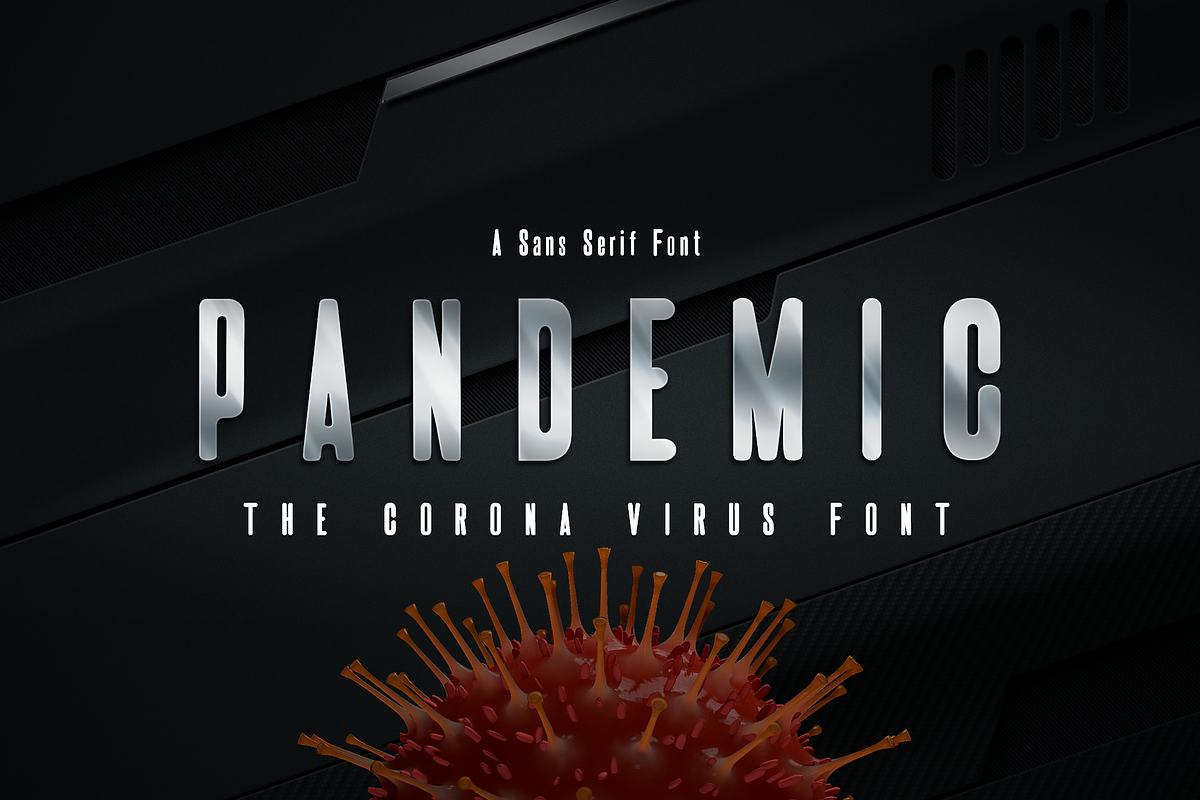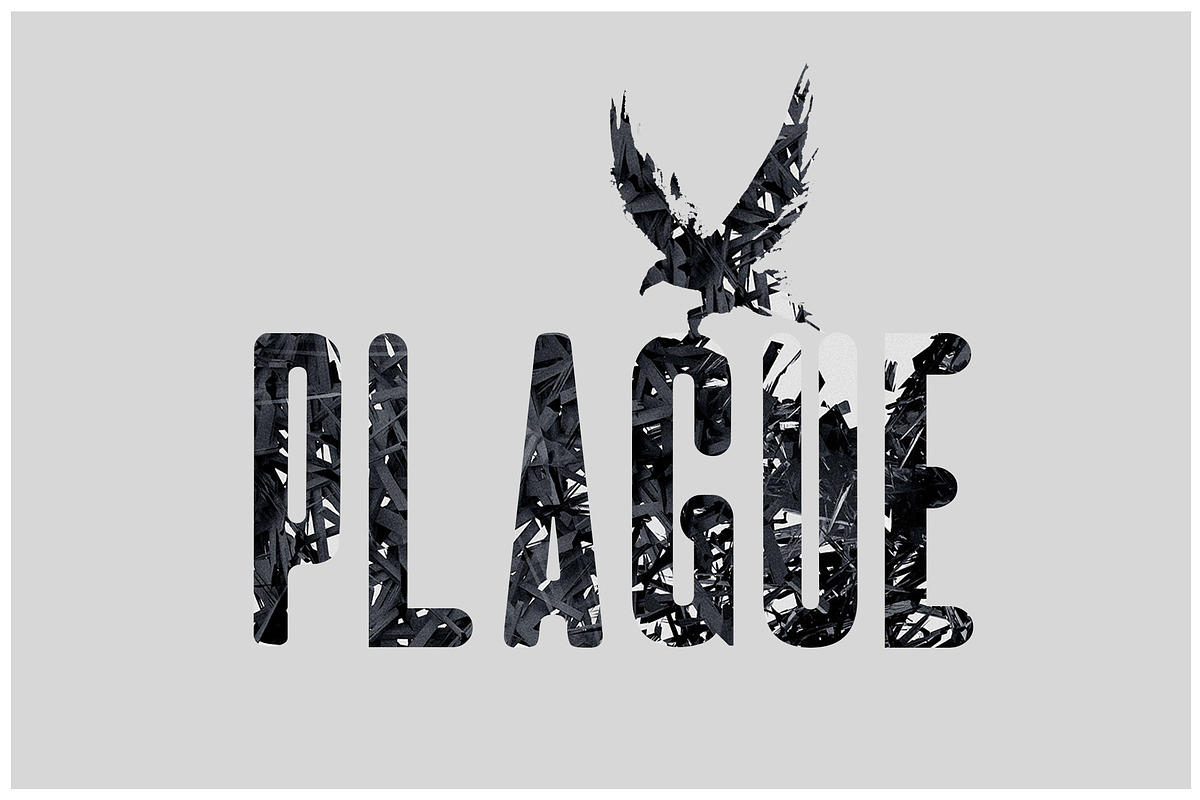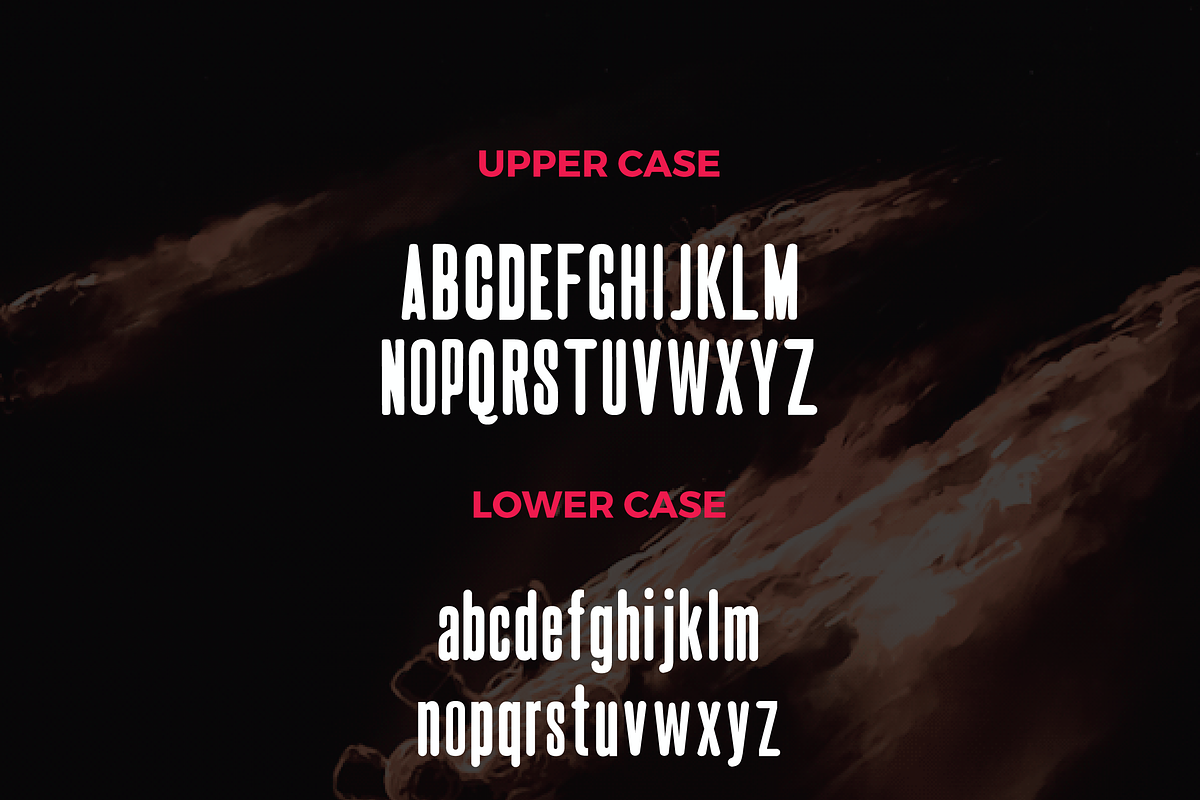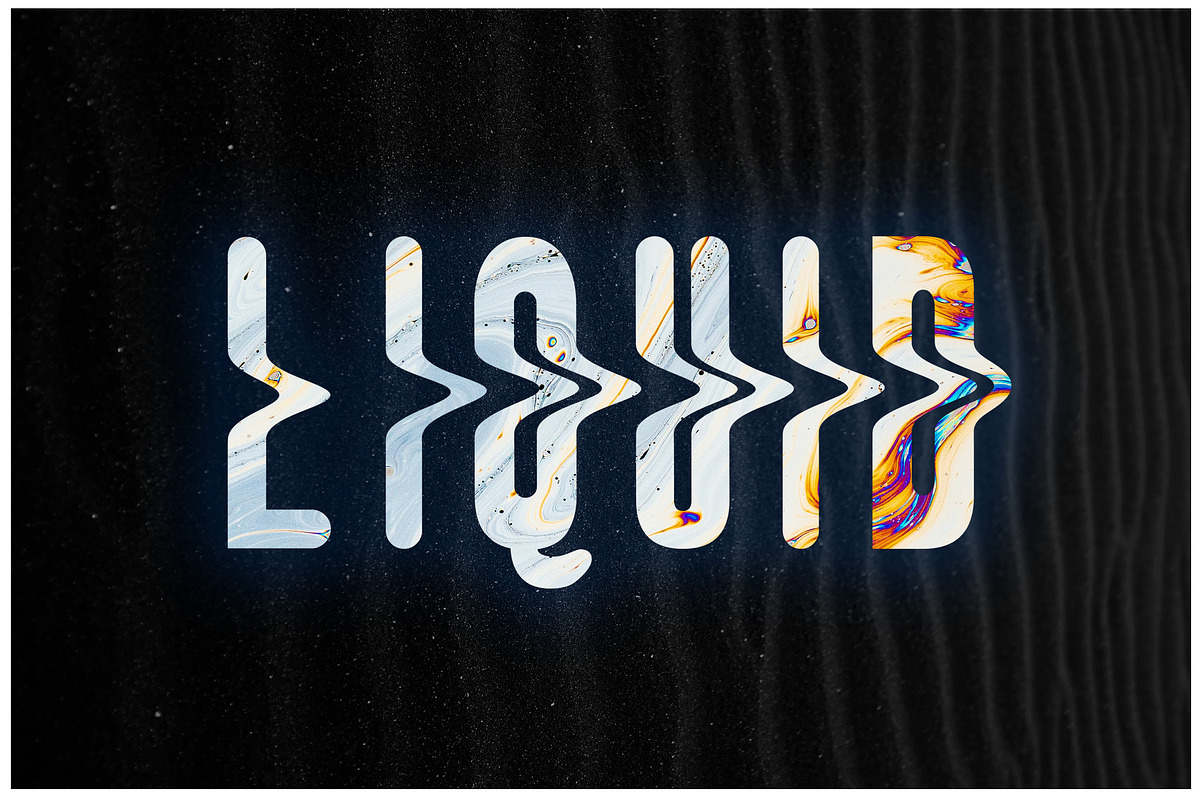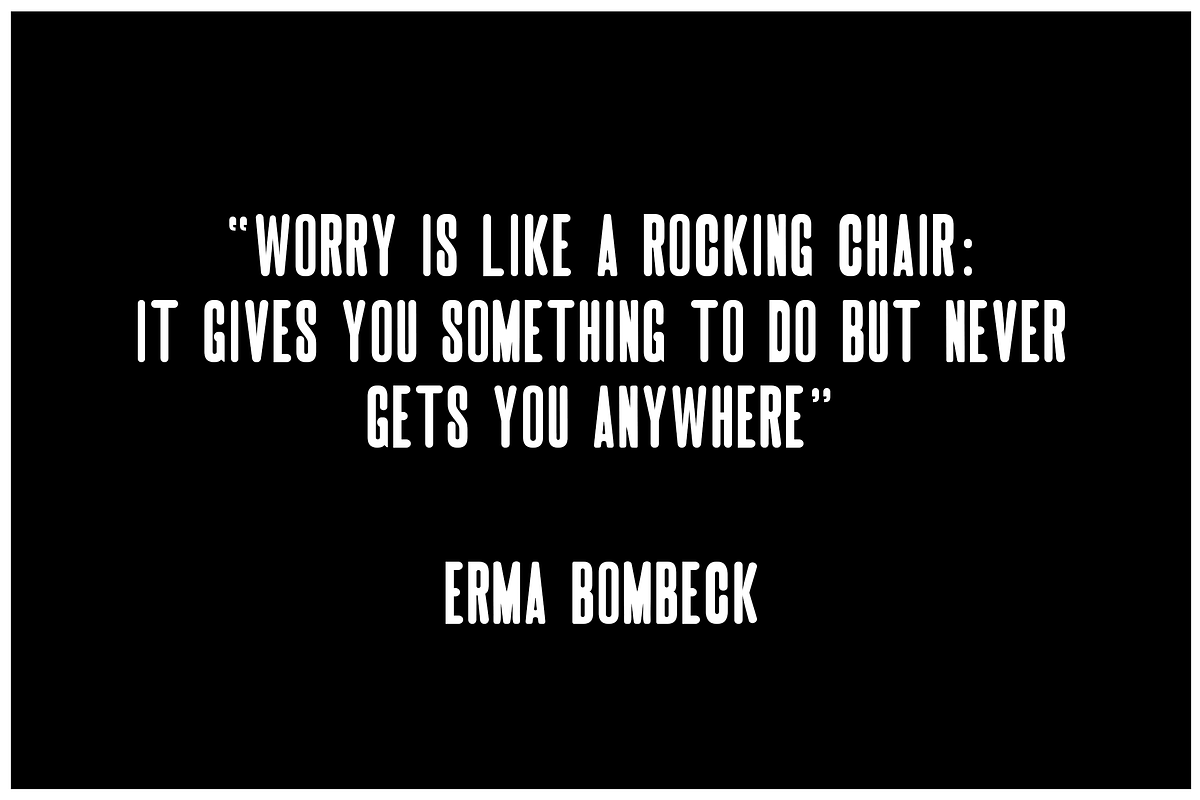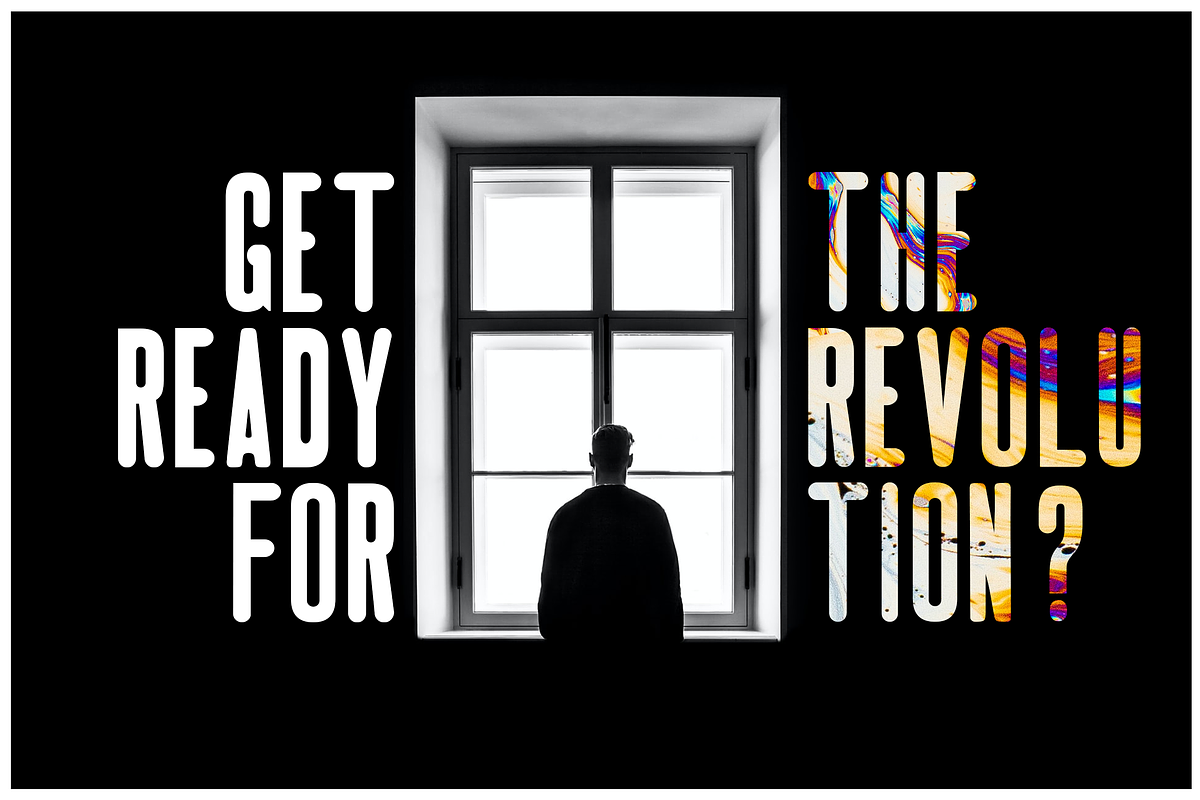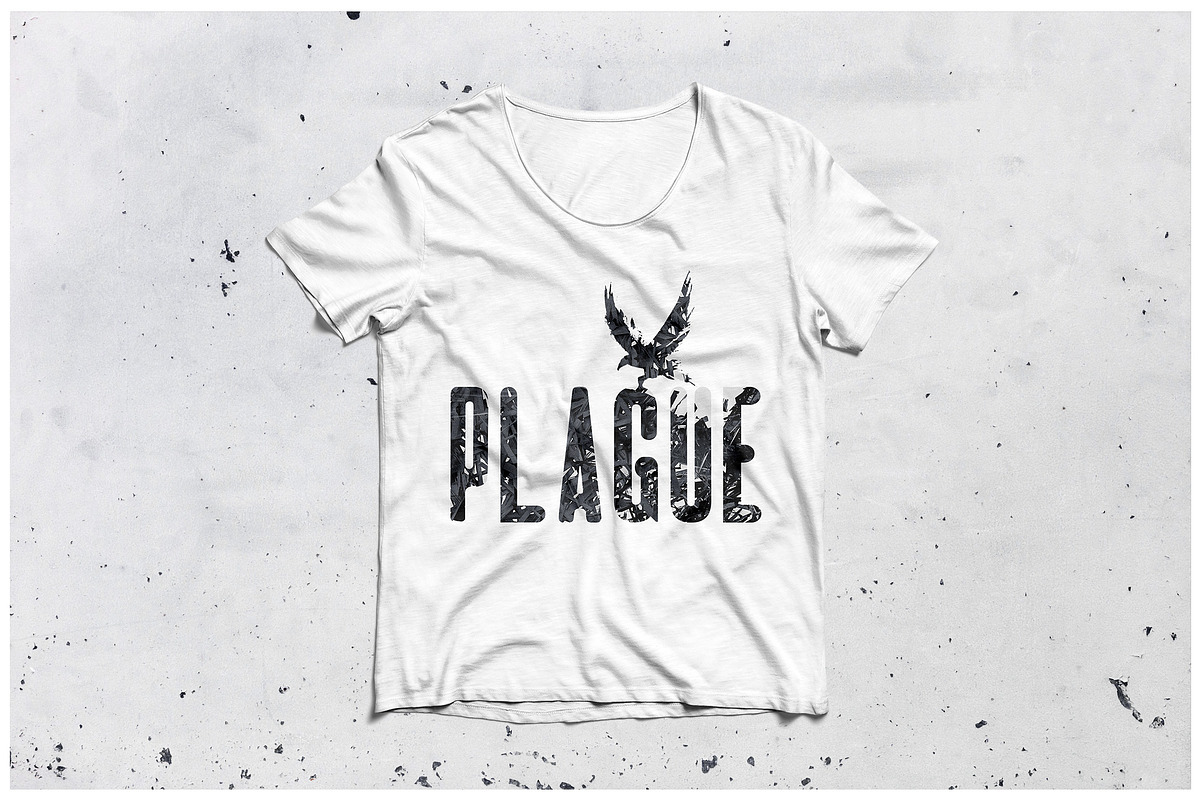
Corona Virus Font | Covid-19 Font
We are in a pandemic situation, our mind is full of noise and uncertainties, we kept asking ourselves what will happen? When this Corona Virus will leave earth? So many questions in our head echoing. I believe this is something you are thinking right now. While we were in this global crisis, We wanted to come with a font which is about Corona Virus. Initially, we have created a minimal
Then thought let’s create a font for Covid19, which can be used in your next poster, print design, video, vlog or something that you love.